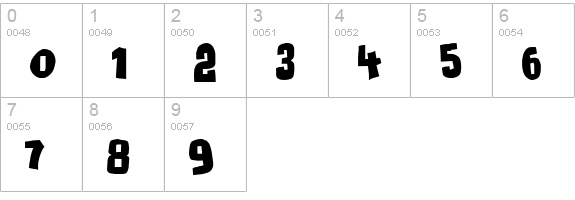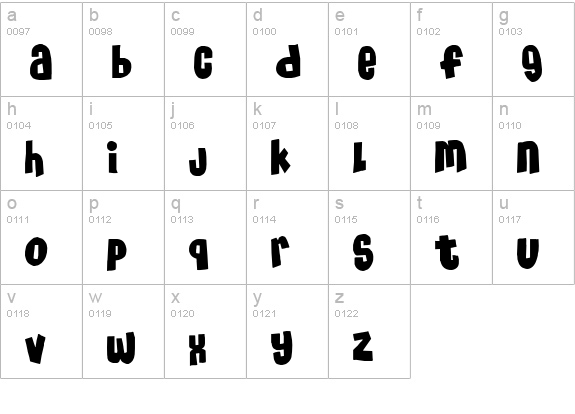
MassiveHeadache3 Font Details
Introducing MassiveHeadache3 font - a captivating typeface that will leave you in awe with its bold and impactful design. This font is the perfect choice for those seeking to make a statement, as its exaggerated letterforms are guaranteed to catch the eye and command attention. MassiveHeadache3 font is a true masterpiece that combines the best of modernity and creativity. Its unique and intricate details make it a standout choice for various design projects, from logos and branding to posters and social media graphics. With its versatile nature, this font allows you to unleash your imagination and bring your ideas to life. But what makes MassiveHeadache3 font even more remarkable is the fact that it is available for free! That's right, this outstanding font can be freely downloaded at FontsMarket.com. By offering this font for free, we aim to make it accessible to everyone and encourage creativity without any limitations. So, whether you're a professional designer or simply someone who appreciates the beauty of typography, MassiveHeadache3 font is a must-have in your collection. With its distinctive style and effortless elegance, it is sure to elevate your designs to new heights. Don't miss out on the opportunity to get this exceptional font for free at FontsMarket.com and unleash your creativity today!